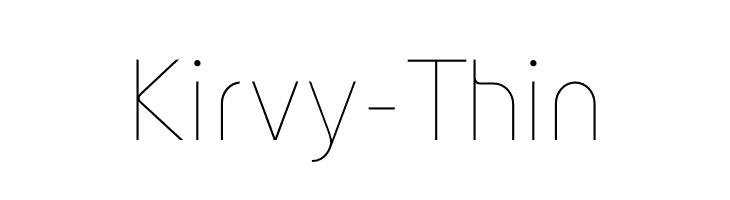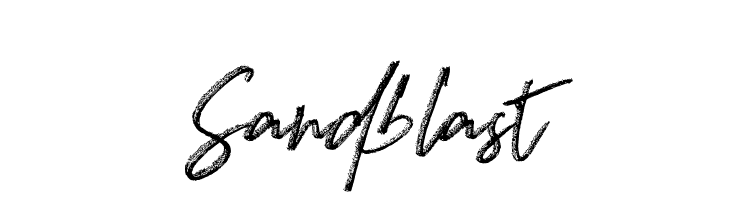
A bold, textured script font with a dynamic, hand-drawn style.
An elegant serif typeface with a refined italic style and graceful curves.
A bold, playful script font with a handwritten style.
A playful and dynamic script font with fluid, connected letterforms.
A whimsical handwritten font with a playful and artistic style.
A thin, modern sans-serif font with a clean and elegant design.
A bold, expressive script font with a hand-drawn, lively style.
A playful, bold font with thick, rounded characters and a lively, energetic style.
A bold, geometric font with a modern, futuristic style.
A pixelated, retro-style font inspired by classic 8-bit video games.